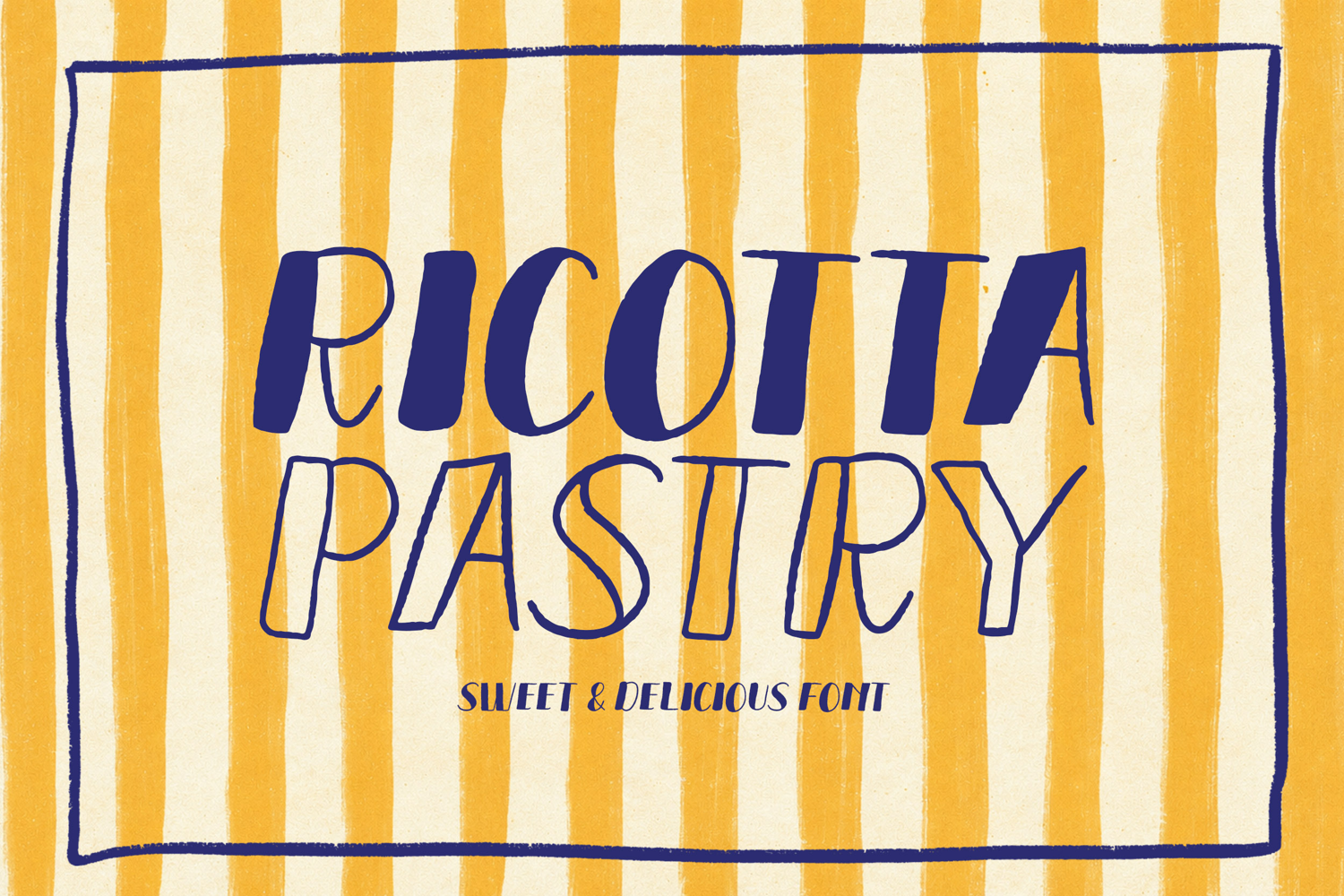
Ricotta Pastry
Ricotta Pastry is a playful vintage display font inspired by the irresistible charm of classic pastry shops, neighborhood bakeries, and cheerful European cafés. With its hand-drawn letterforms, soft curves, and delightfully imperfect details, this font captures the warmth of freshly baked treats and nostalgic storefront signage. Its bold yet whimsical personality makes it perfect for bakery branding, dessert packaging, café menus, food labels, recipe books, greeting cards, children's products, and cozy lifestyle designs that call for a sweet handmade touch.
Designed to stand out in eye-catching headlines while remaining full of character, Ricotta Pastry brings a delicious vintage flair to logos, product packaging, social media graphics, posters, stickers, apparel, market signage, and creative merchandise. Whether you're creating branding for a pastry shop, an artisan food business, or a retro-inspired project, this font delivers a warm, inviting, and memorable aesthetic that feels both nostalgic and delightfully fresh.